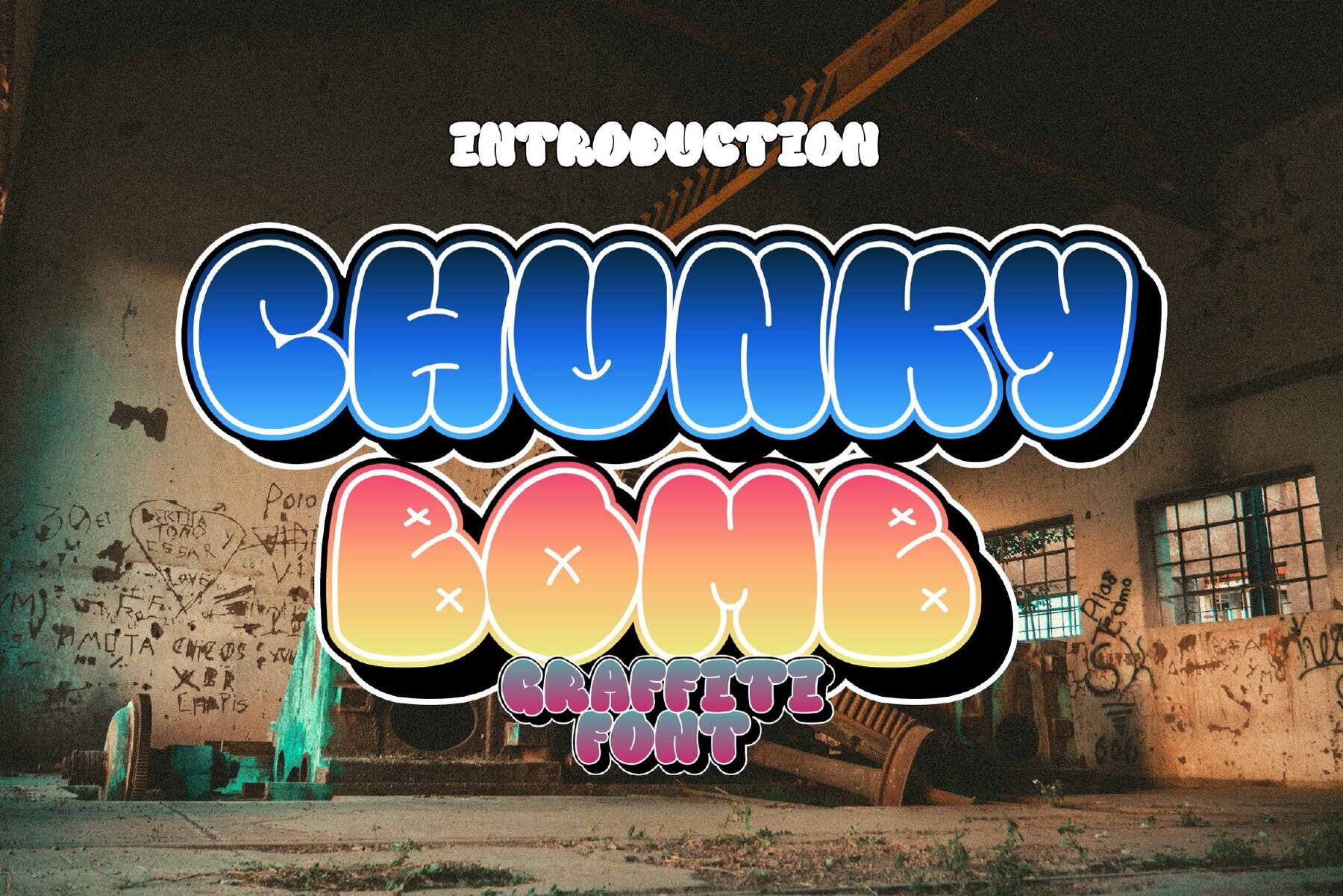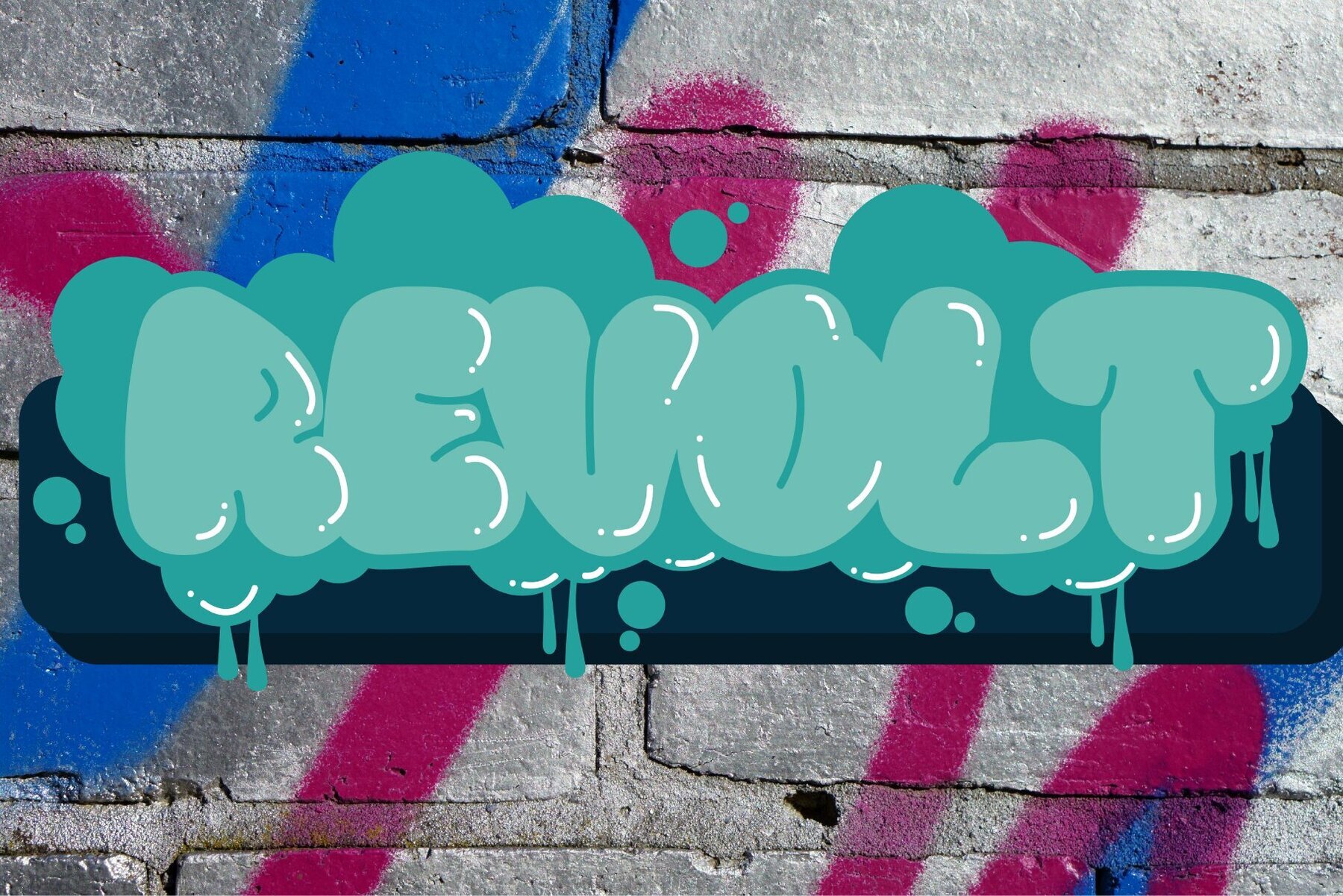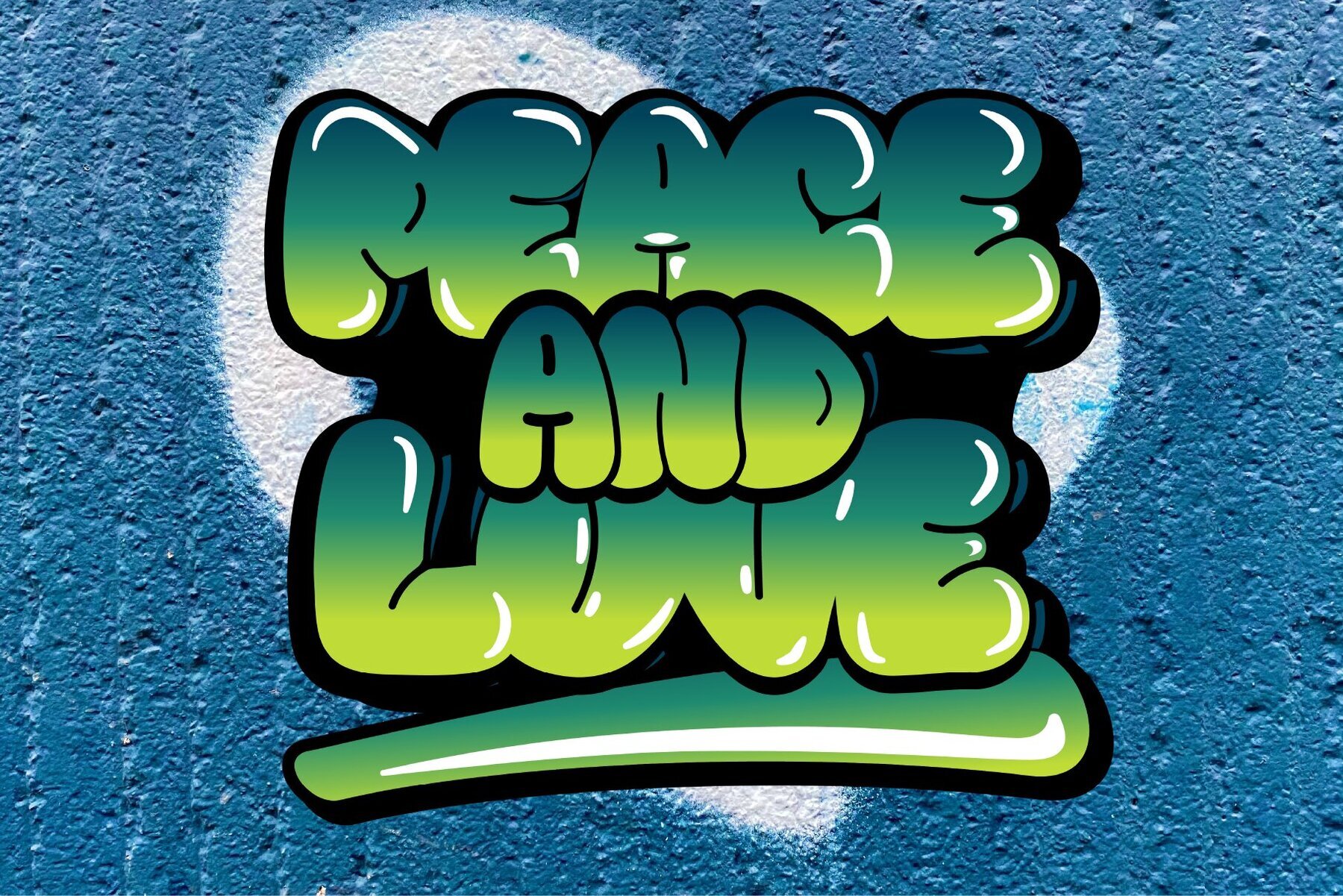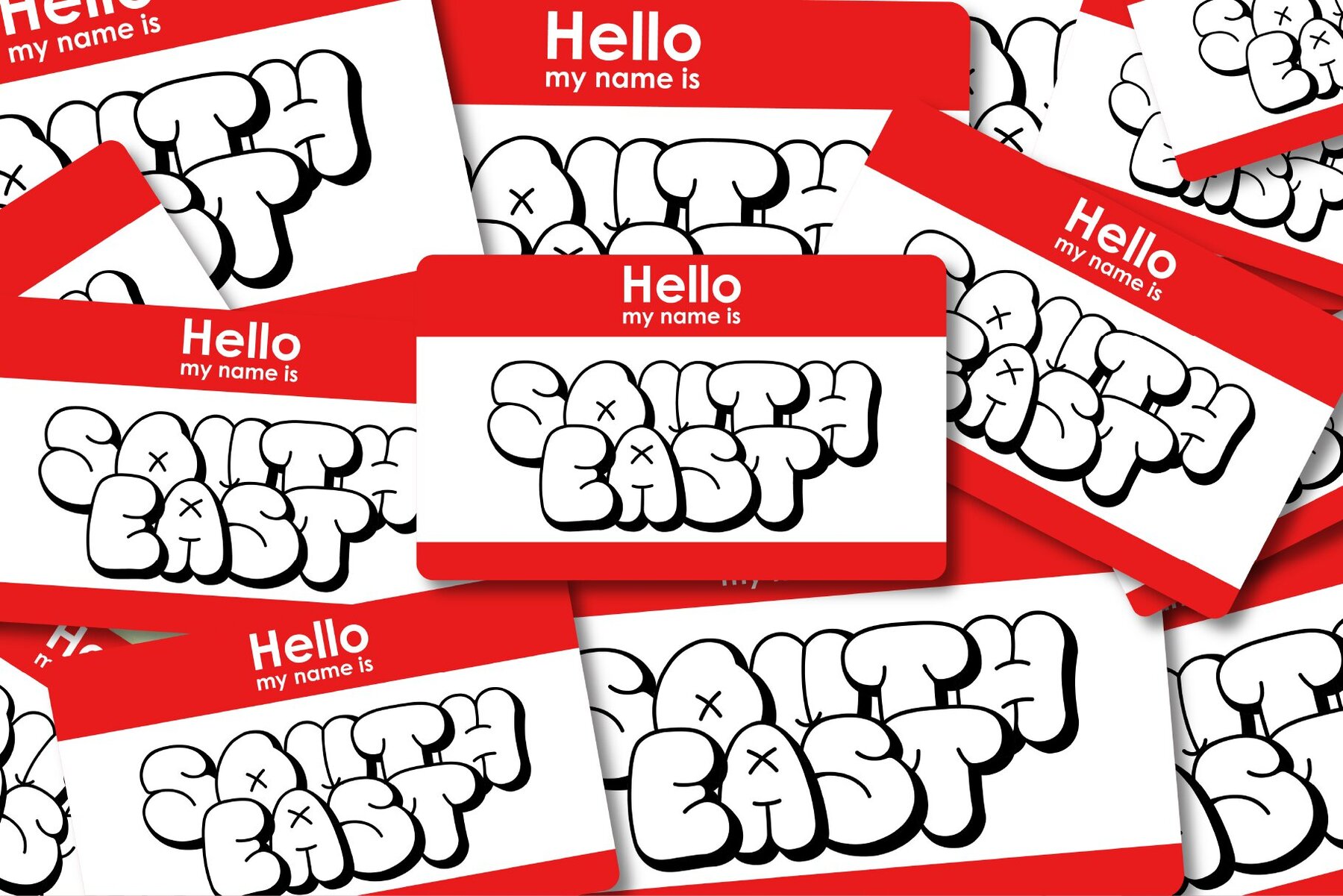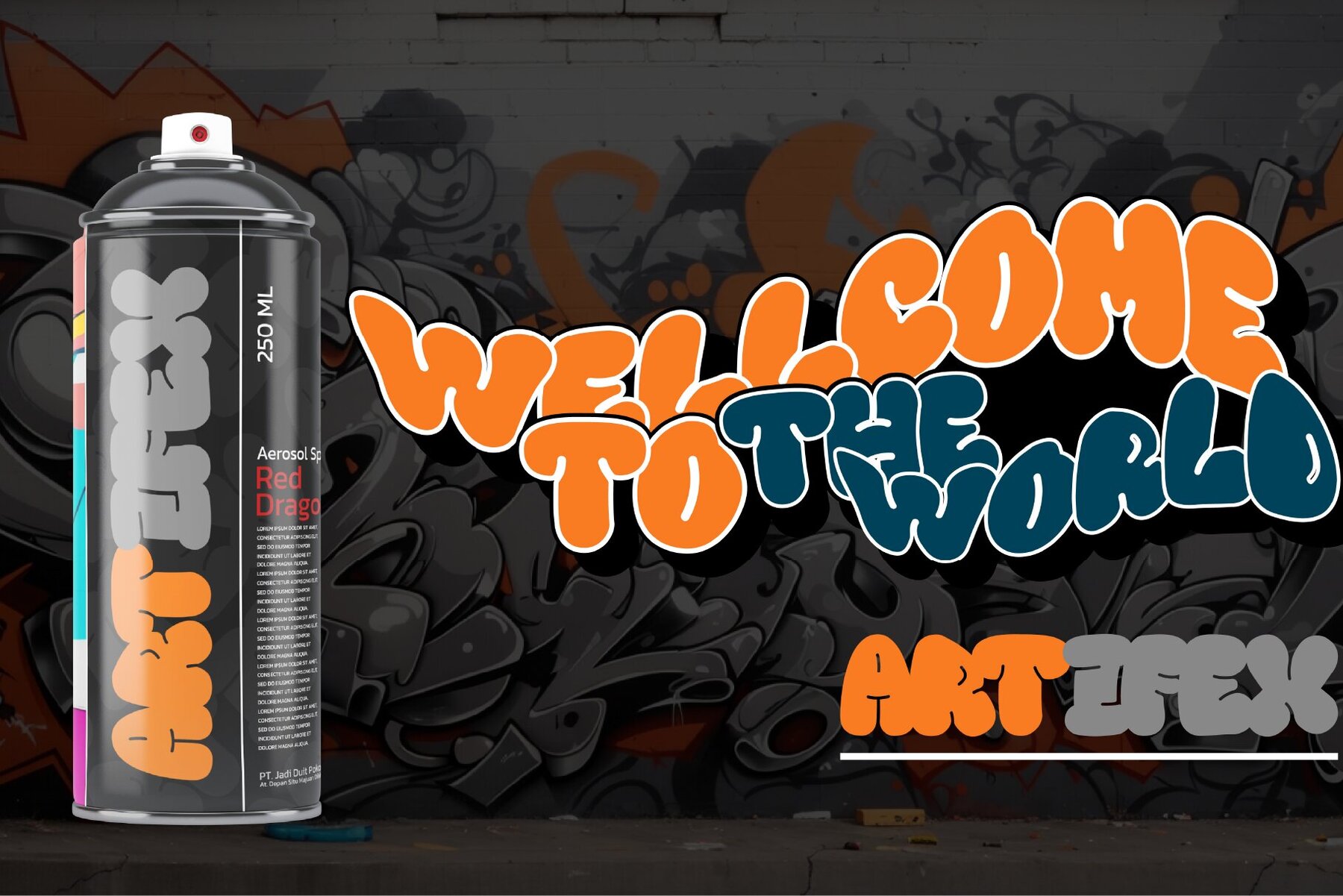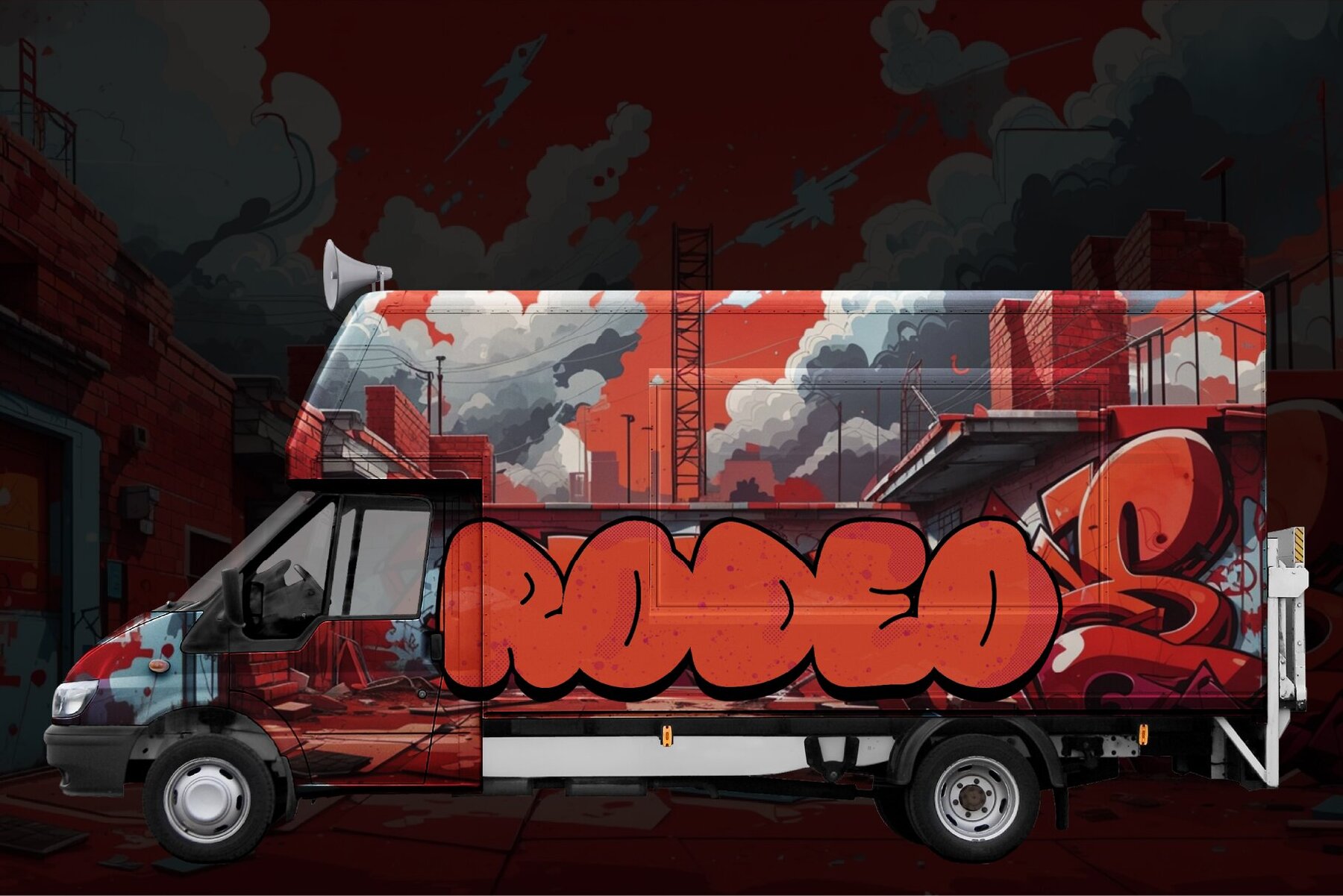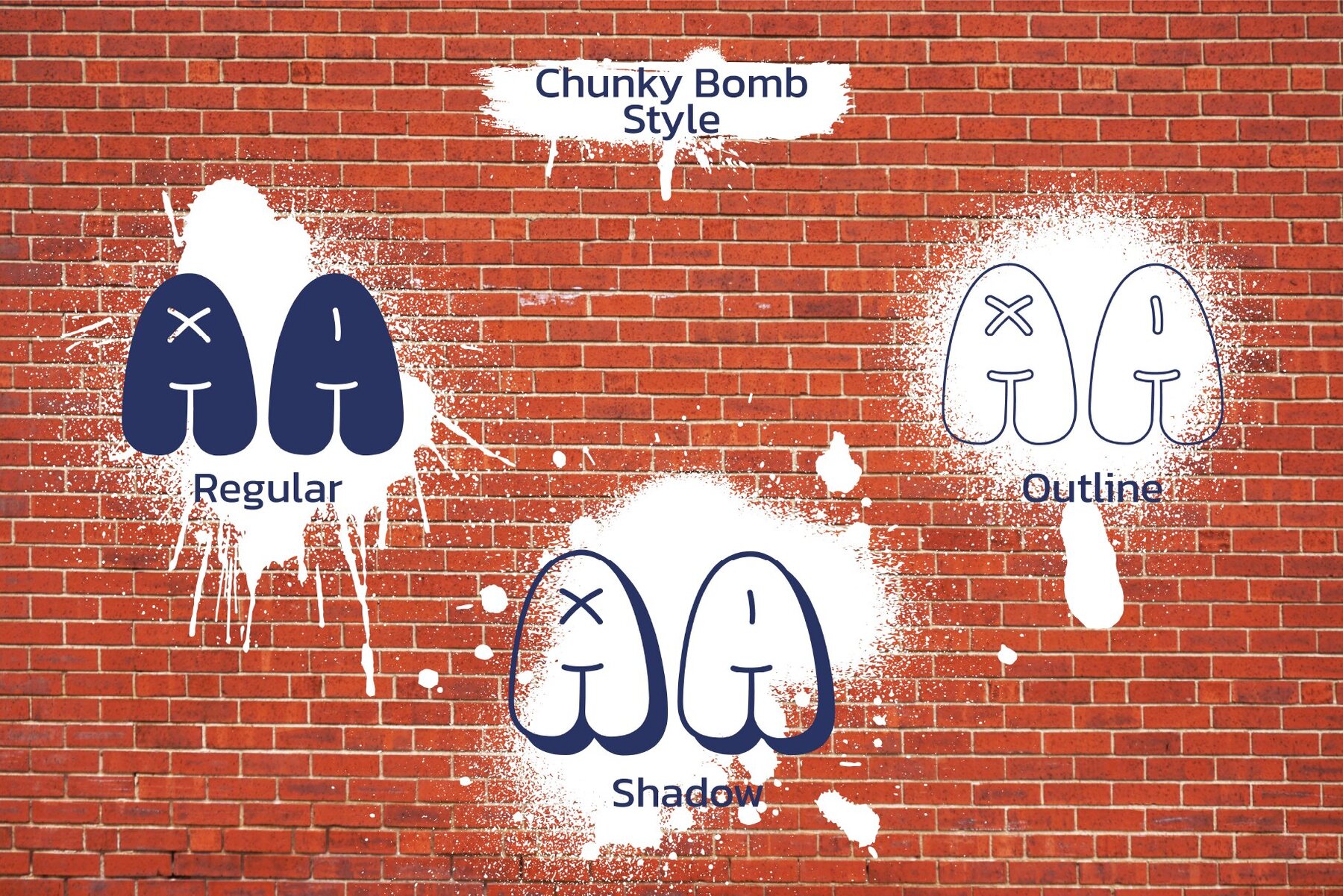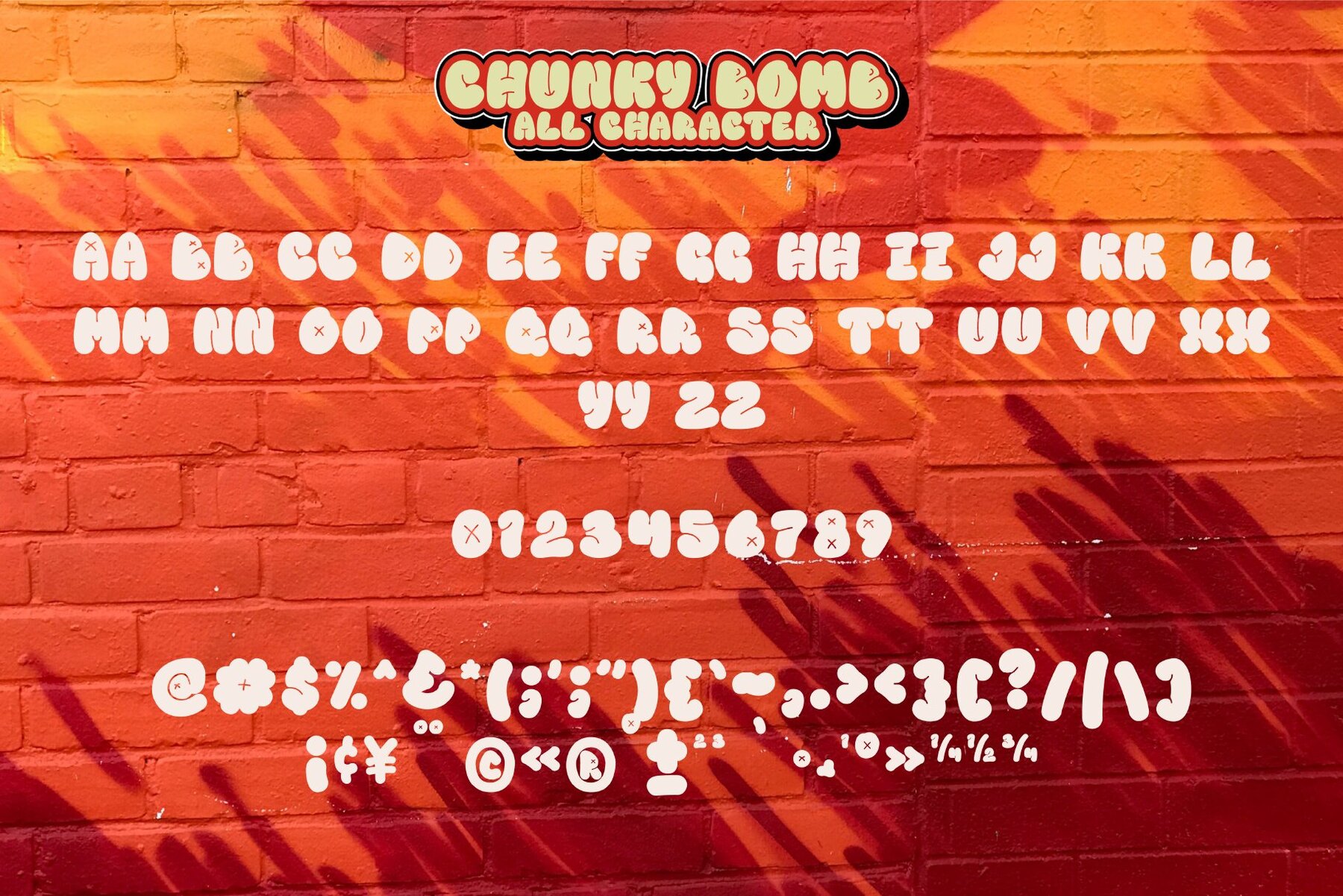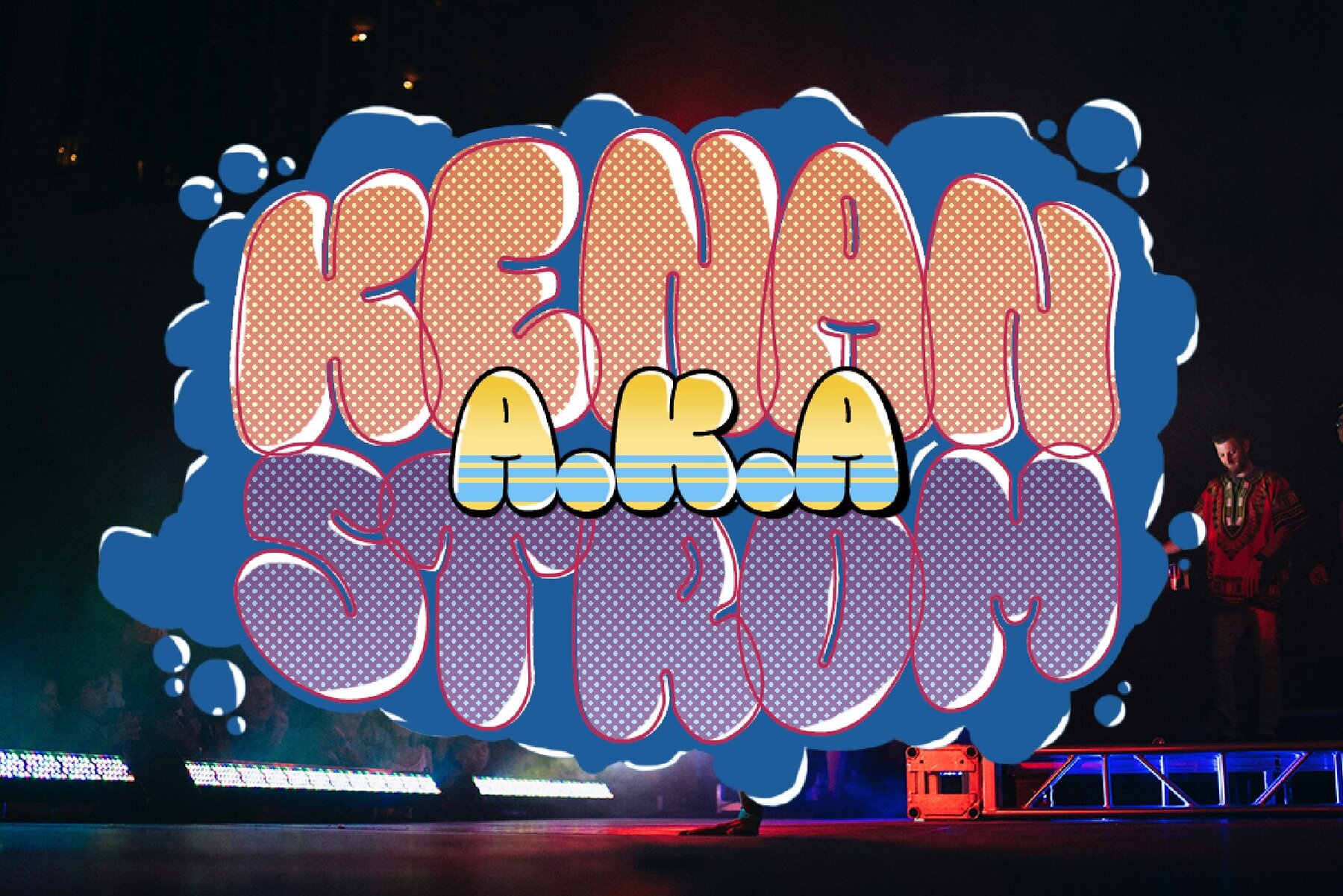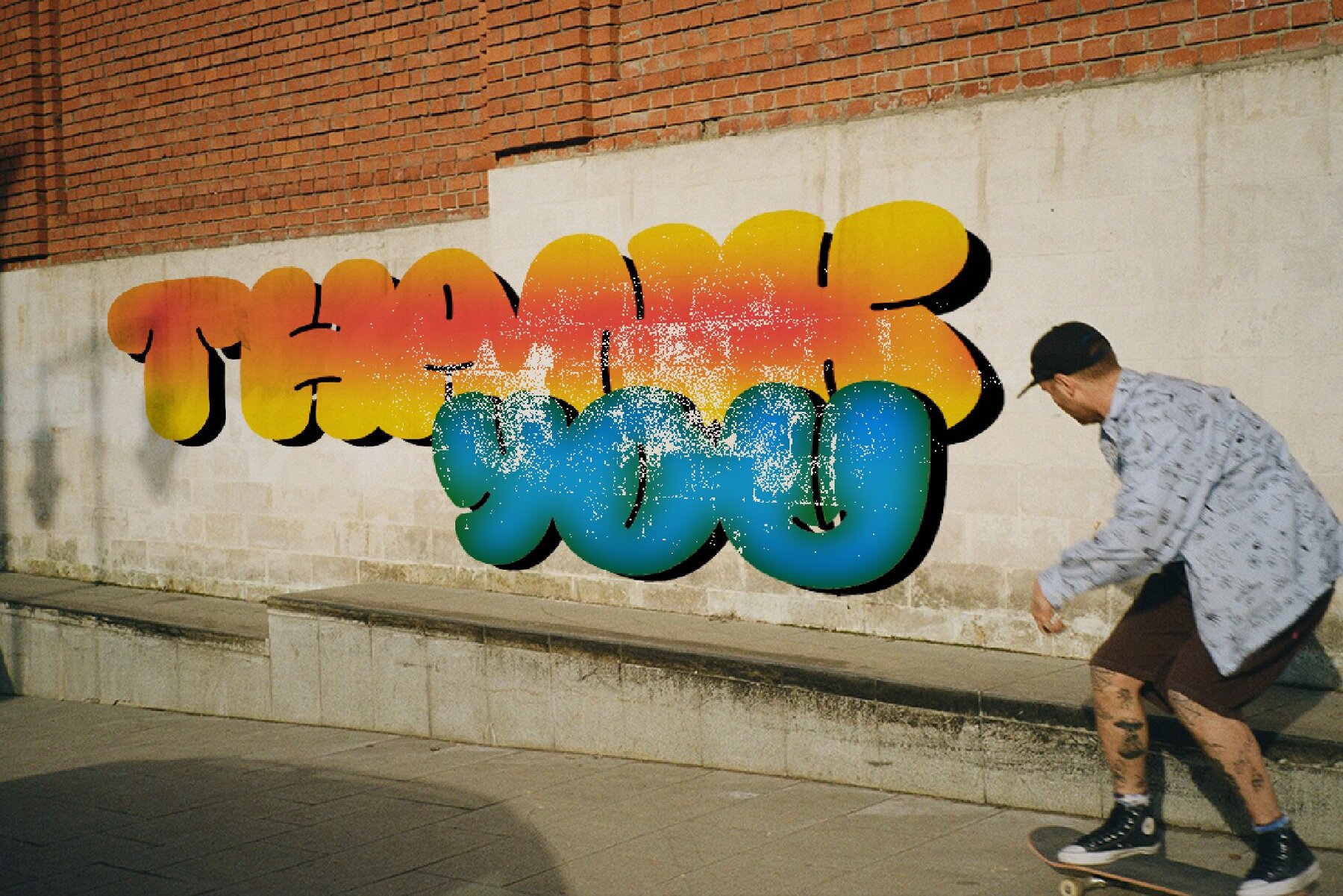
Chunk Bomb Font
Chunky Bomb is a graffiti font that seamlessly blends the playful aesthetics of bubble styles with a retro twist. This decorative font brings a sense of nostalgia and urban charm to your design projects, with each character featuring a distinctive bubble-like appearance. Chunky Bomb's adaptability makes it perfect for a wide range of projects. Use it to enhance your branding, headlines, invitations, logotypes, wall art illustrations, labels, and more, adding a creative edge to each piece.Chunky Bomb: Playful Graffiti Font with Nostalgic Appeal
Versatile Design Applications
Features at a Glance